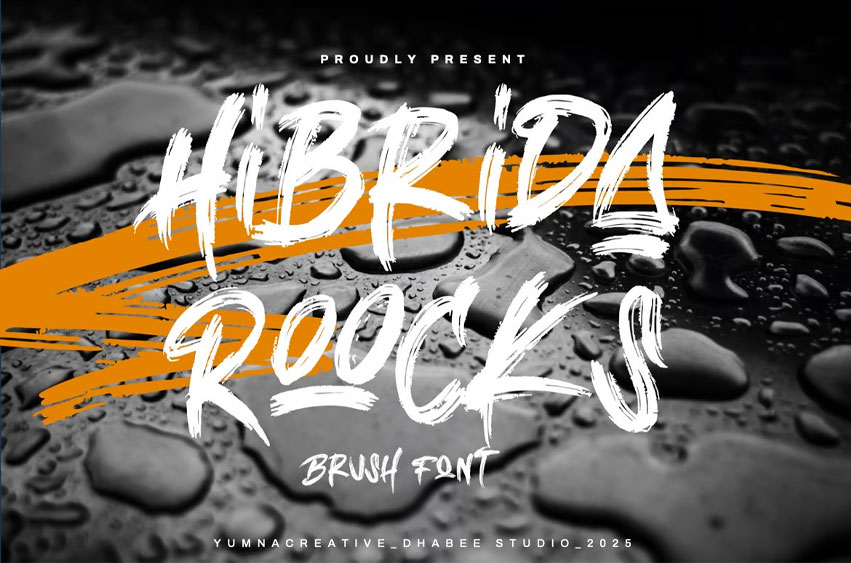
Hibrida Roocks Font
Hibrida Roocks Font is a delicate, elegant, and flowing handwritten font. It has a beautiful and well as unique blend of ligatures and a letter so that the authors compose it with a little swirly embedding so that a modern font is formed and ready to make a statement by adding an elegant and unique flair to your next design project. Add it to your most creative ideas and notice how it makes them come alive!